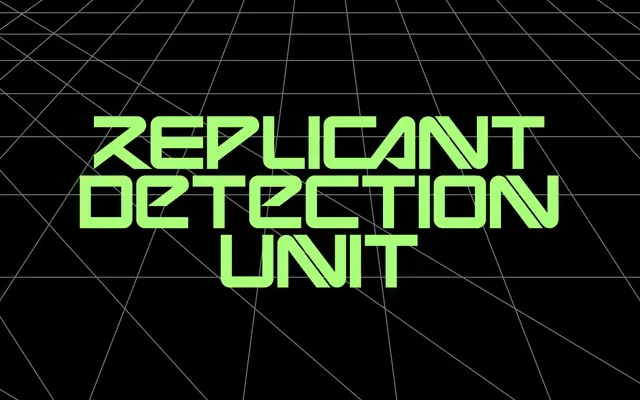
BD Cyborg
Type Different · 2023
An updated version of the 2004 BD Deckard font, reworked in 2023 with broader language support for science-fiction design work.
Originally released as BD Deckard in 2004, this single-weight display face was rebuilt in 2023 with expanded Latin language coverage including Danish, Dutch, French, German and fourteen others. The letterforms carry the angular, futuristic quality suited to sci-fi editorial, game titles and thematic branding. Available in one style at a single price point.
A stylised display typeface designed explicitly for science-fiction contexts, with angular and futuristic letterforms rather than any conventional text classification.